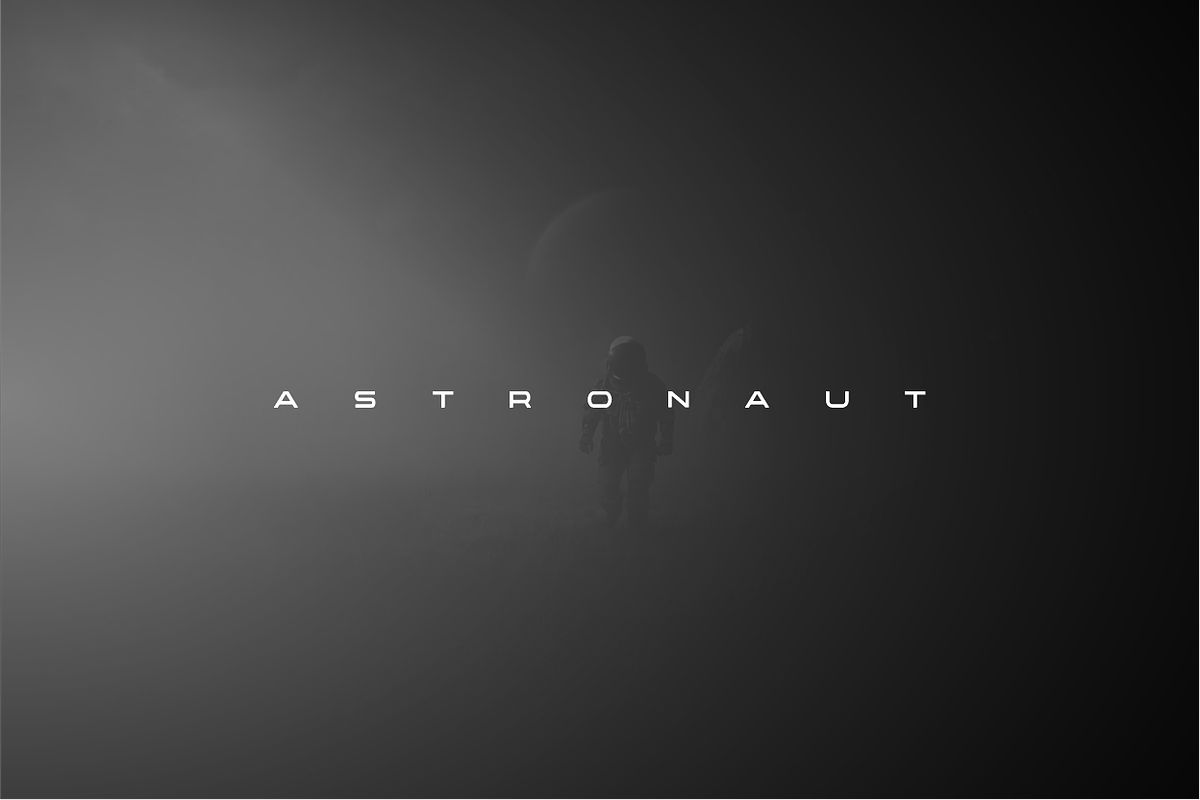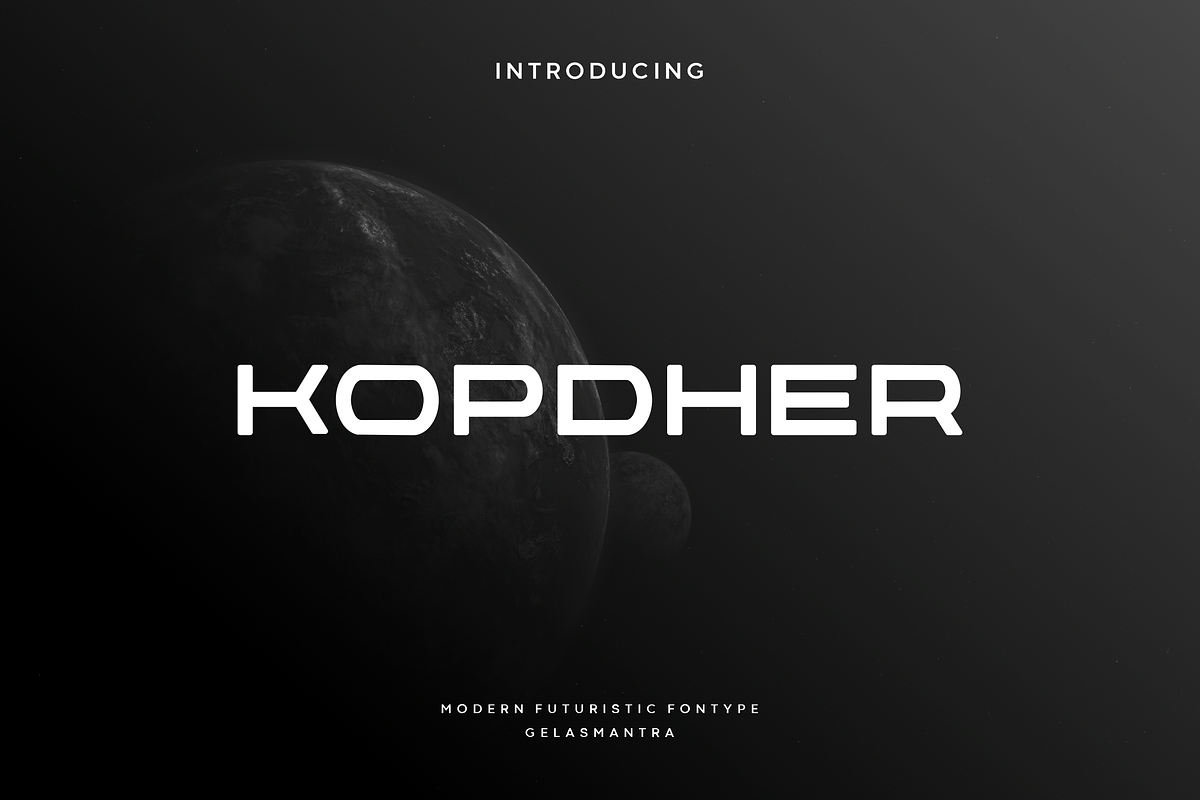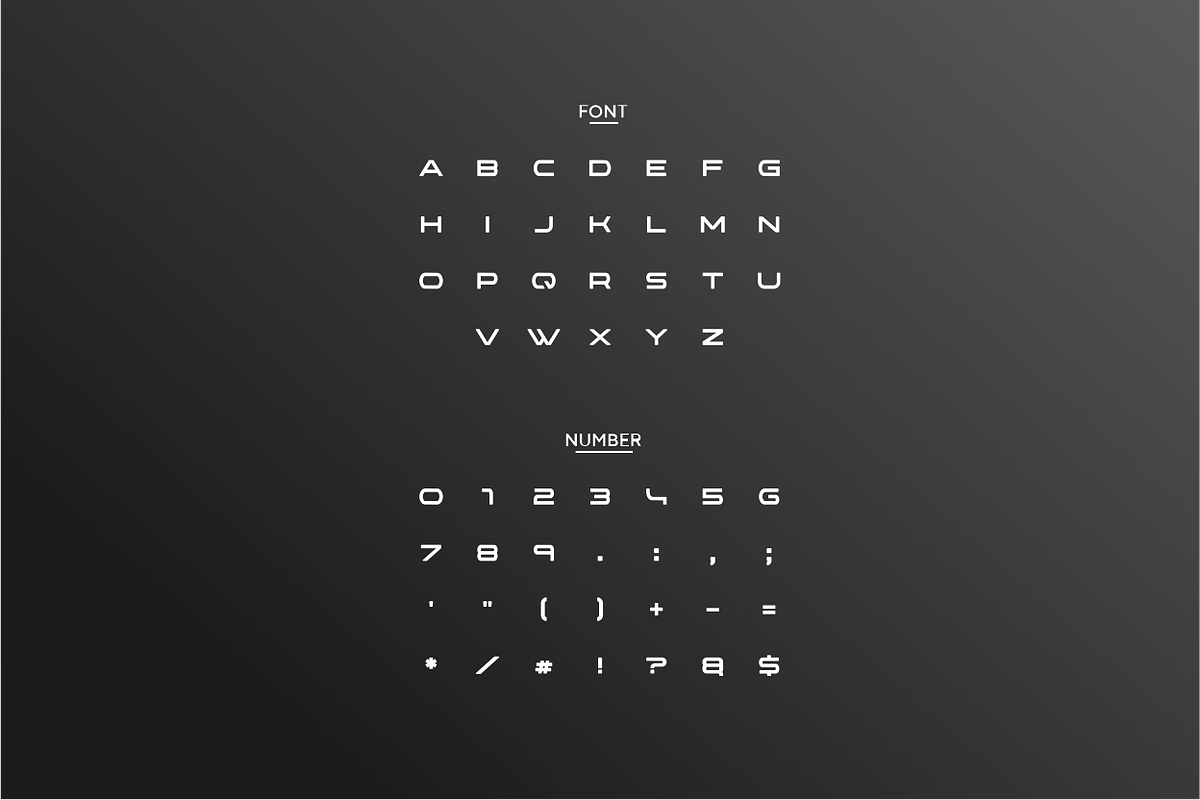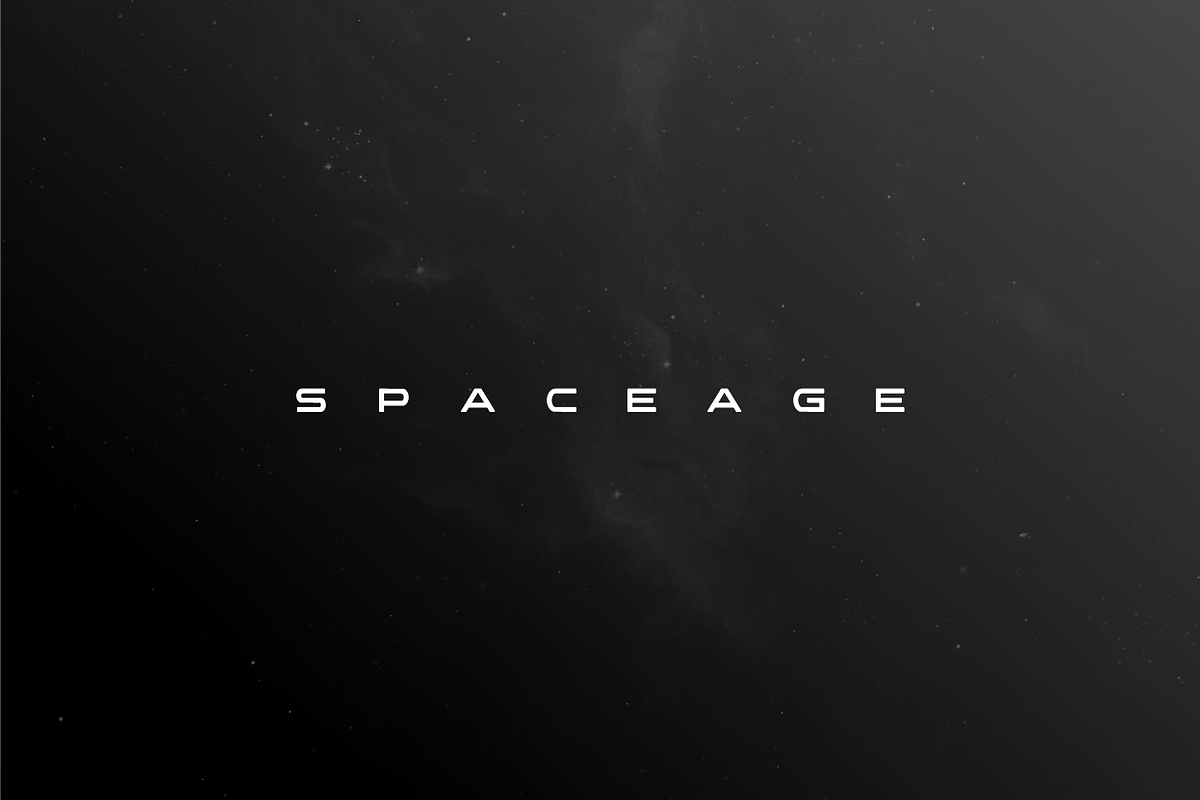
Kopdher
Kopdher is a modern, elegant and futuristic display font. This font would be ideal for writing web designs, business cards, or pretty much anything else that requires a unique touch.